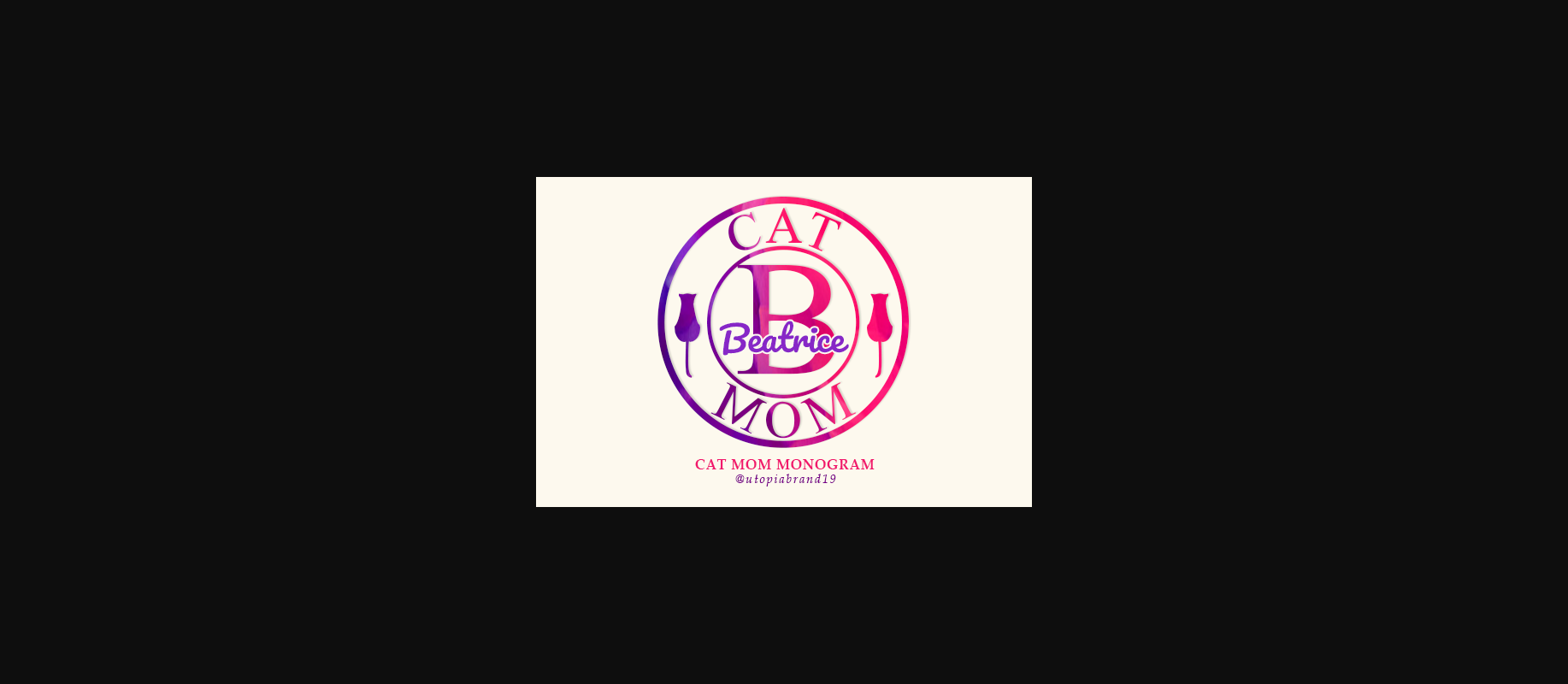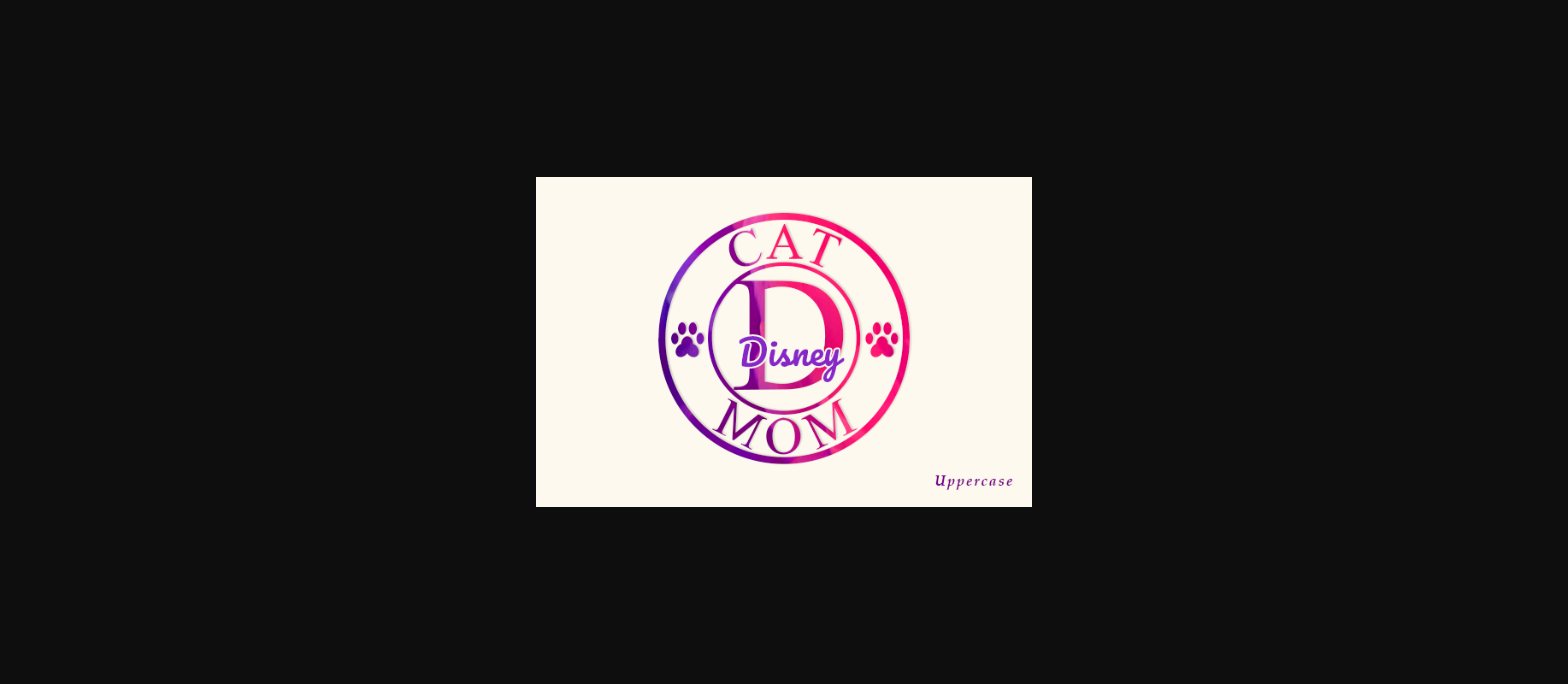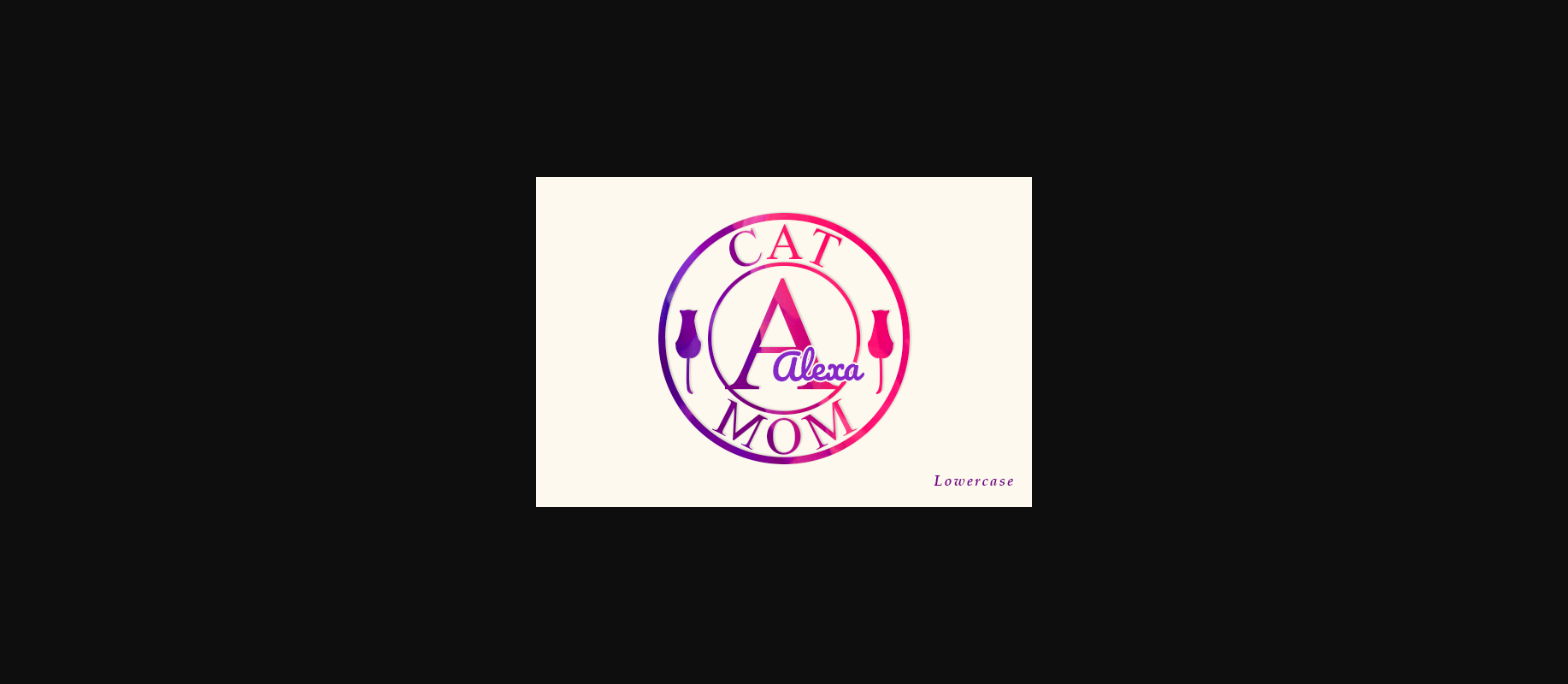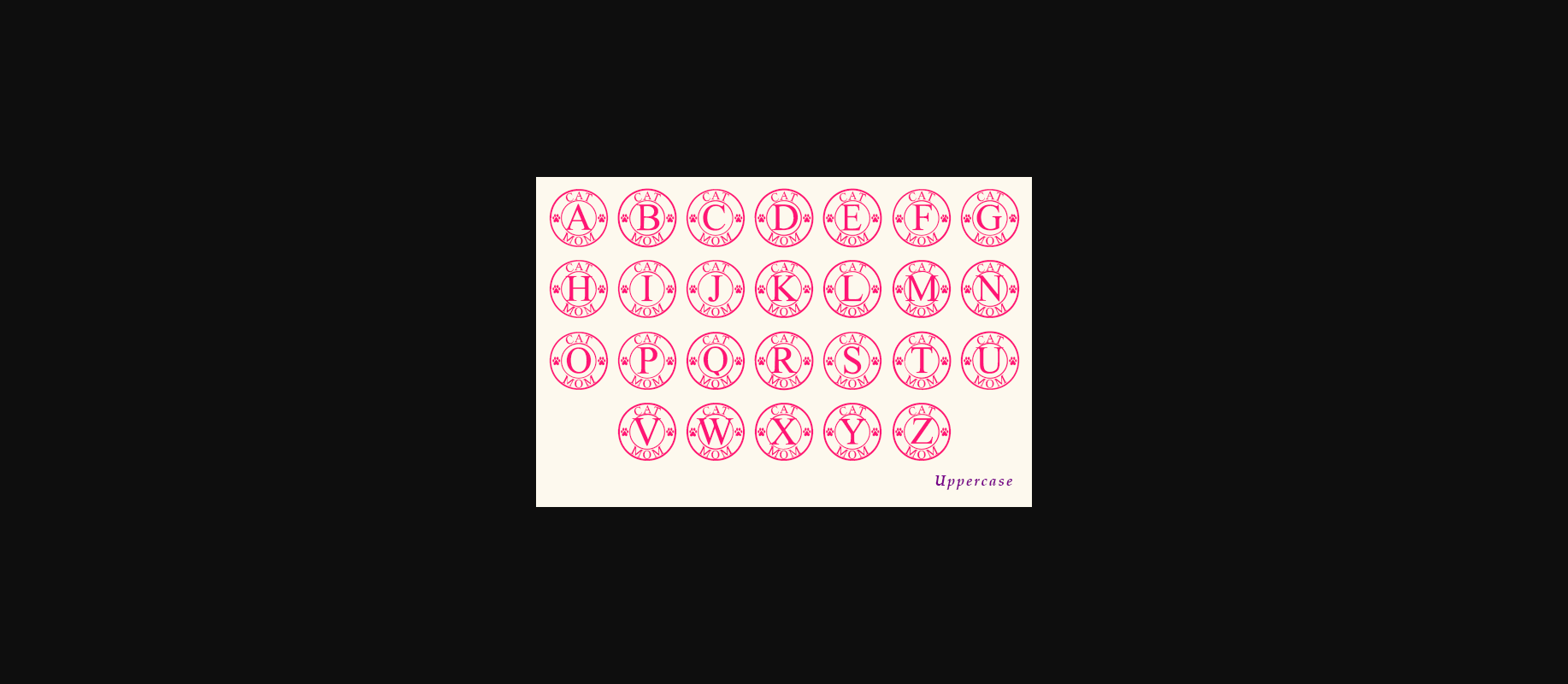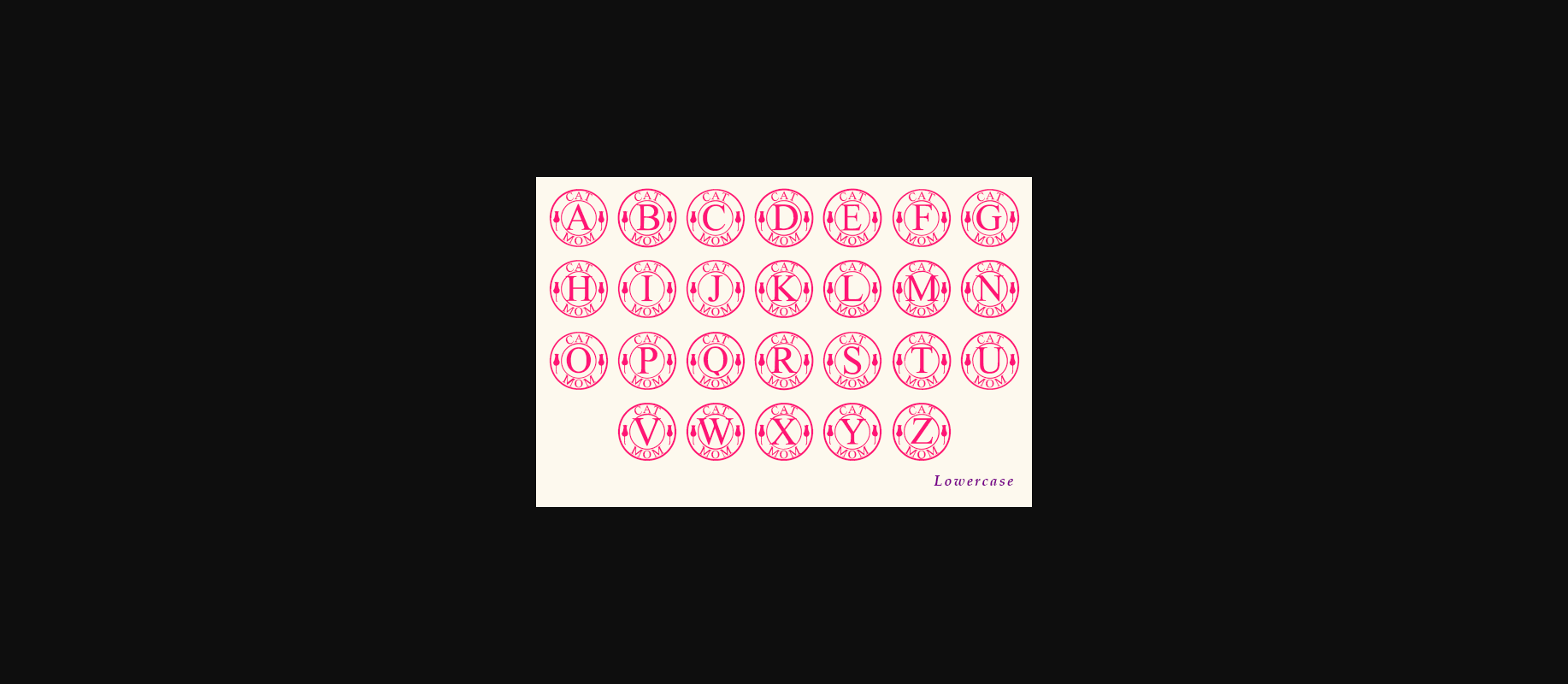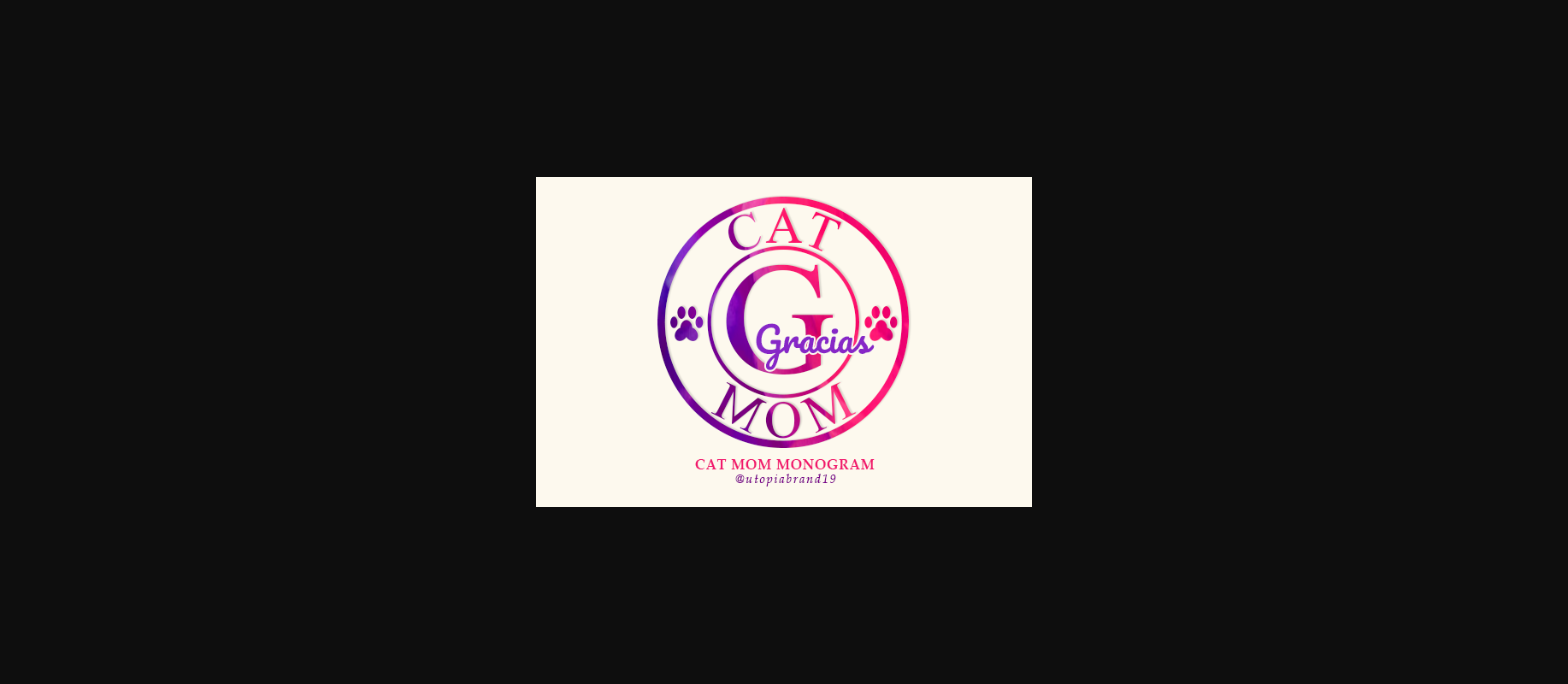
Cat Mom Monogram Font
About Cat Mom Monogram Font
Mom Cat Monogram is an elegant decorative font, featuring lovely cat-themed ornaments. Fall in love with its authentic feel and use it to create gorgeous, beautiful stationery art, eye-catching social media posts, and cute greeting cards.